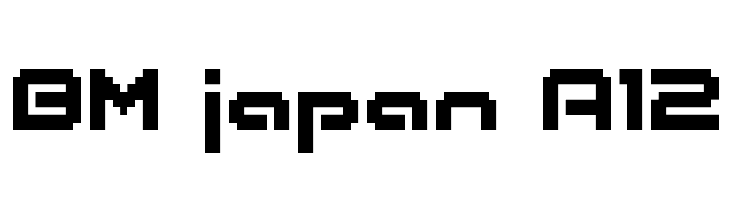
A pixelated, blocky font inspired by retro digital displays and video games.
A pixelated, retro-style font with a blocky, grid-like design.
A pixelated, geometric font inspired by retro digital displays.
A bold, pixelated font with a retro digital aesthetic.
A pixelated, digital-style font with a modern, tech-inspired aesthetic.
A pixelated, blocky font with a retro digital style.